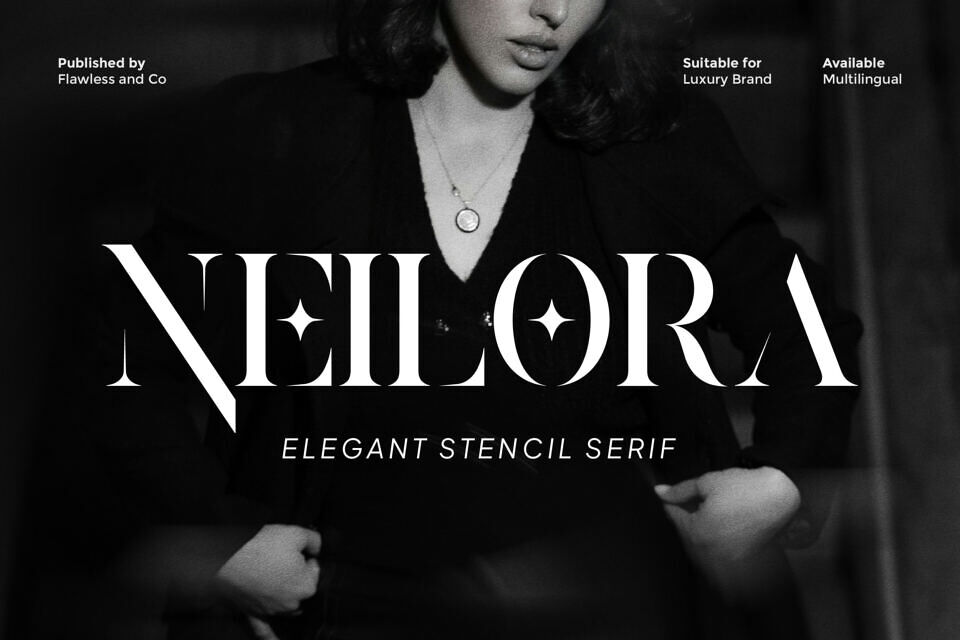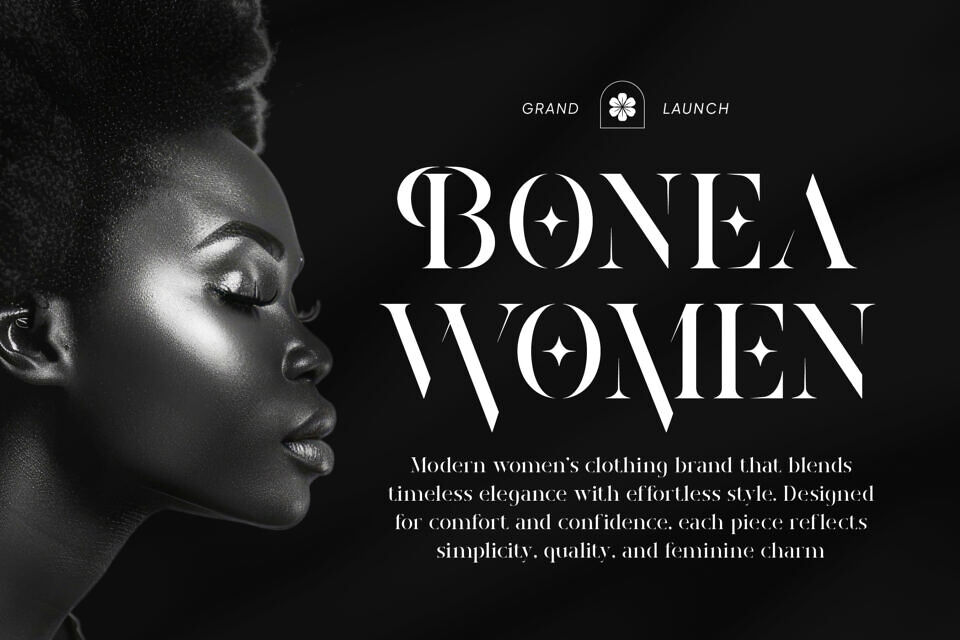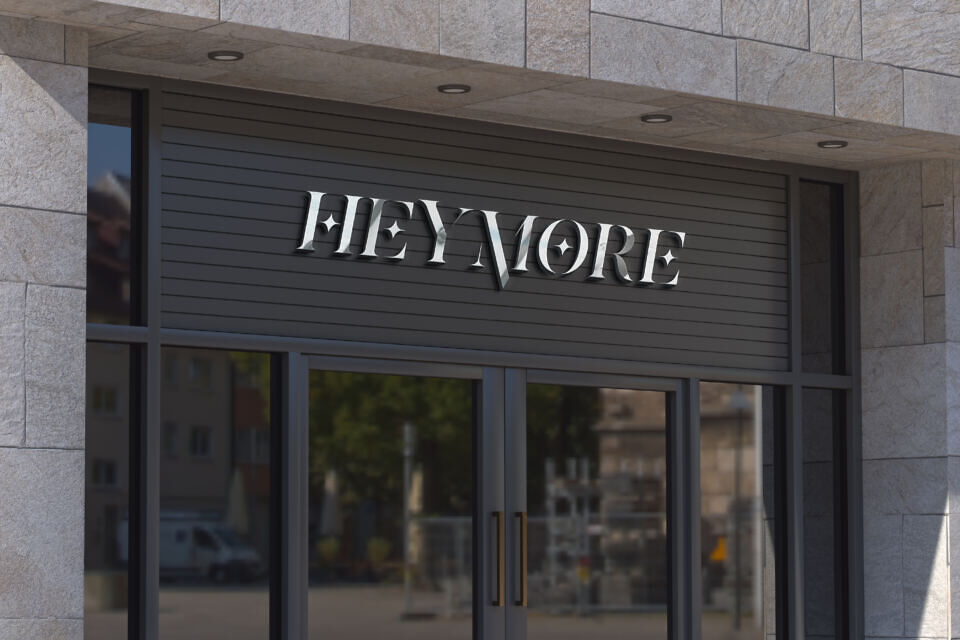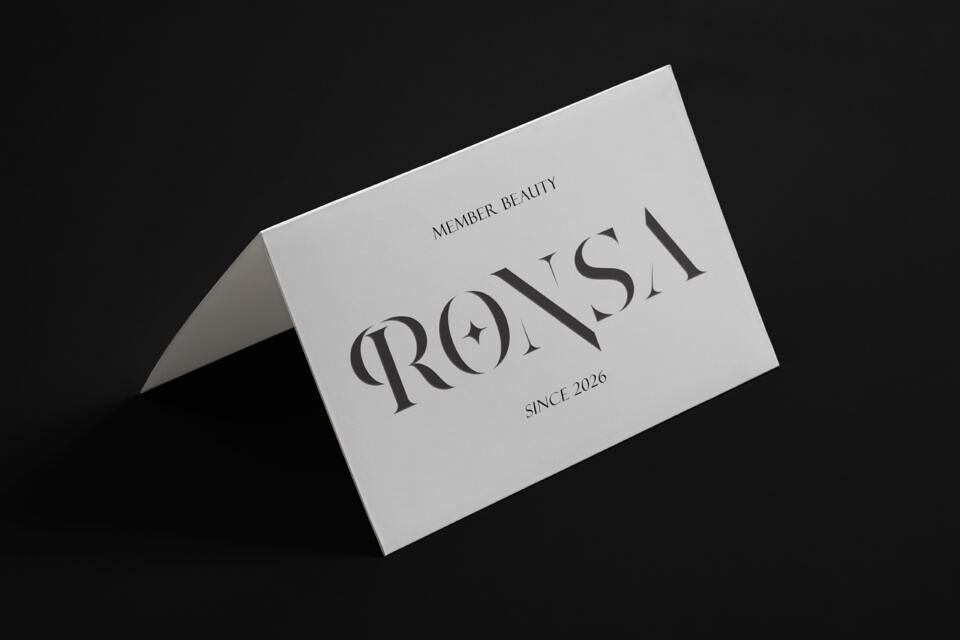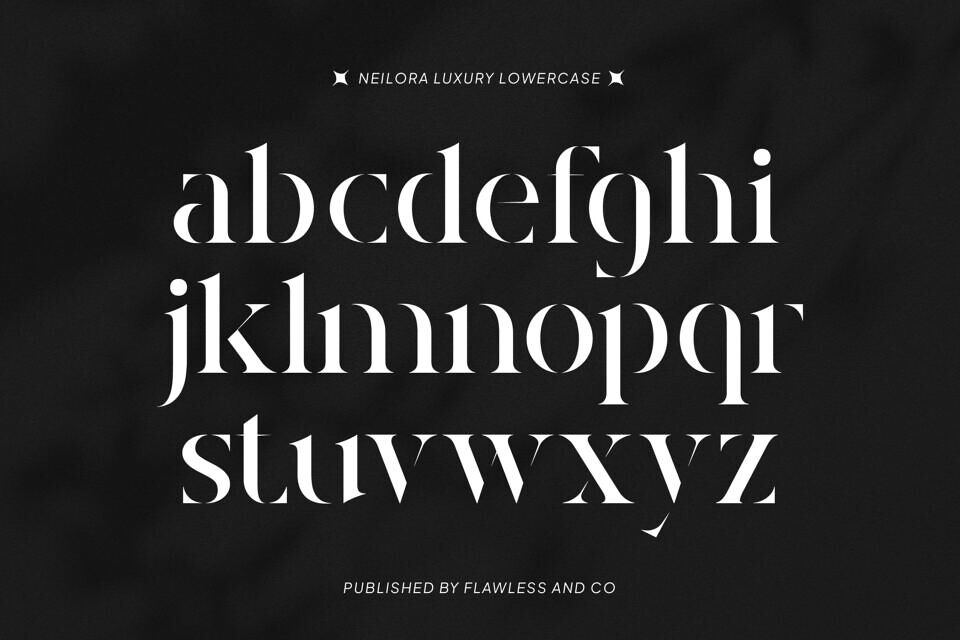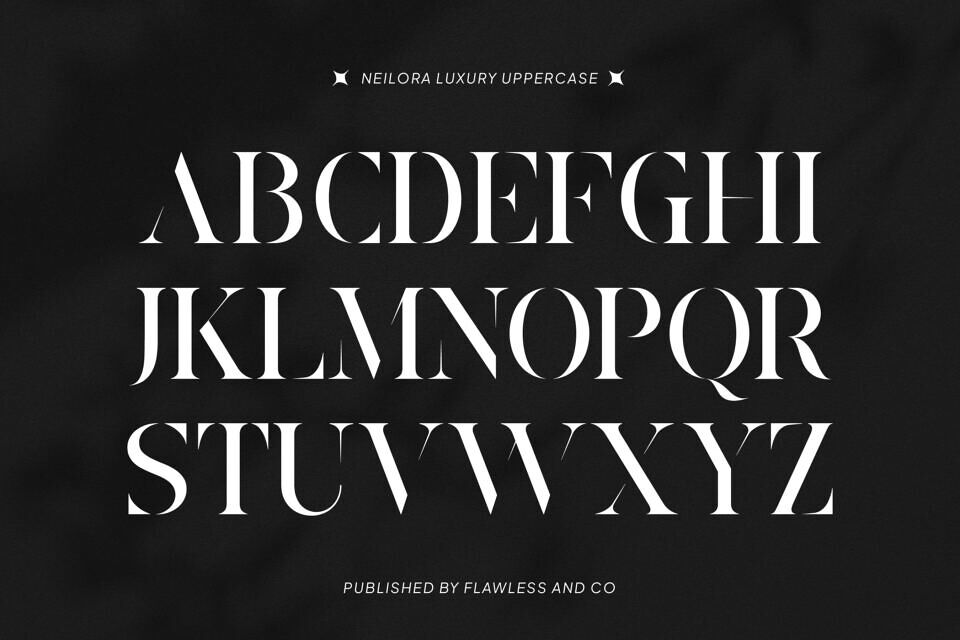
Neilora Font
Neilora is a refined elegant stencil serif typeface that combines classic sophistication with a modern structured edge. Featuring graceful serif details paired with distinctive stencil cuts, Neilora creates a unique balance between elegance and bold character.
Its clean yet decorative style makes it perfect for designs that want to stand out while maintaining a polished and luxurious feel. Whether for branding, editorial layouts, or premium packaging, Neilora delivers a striking and memorable visual identity.